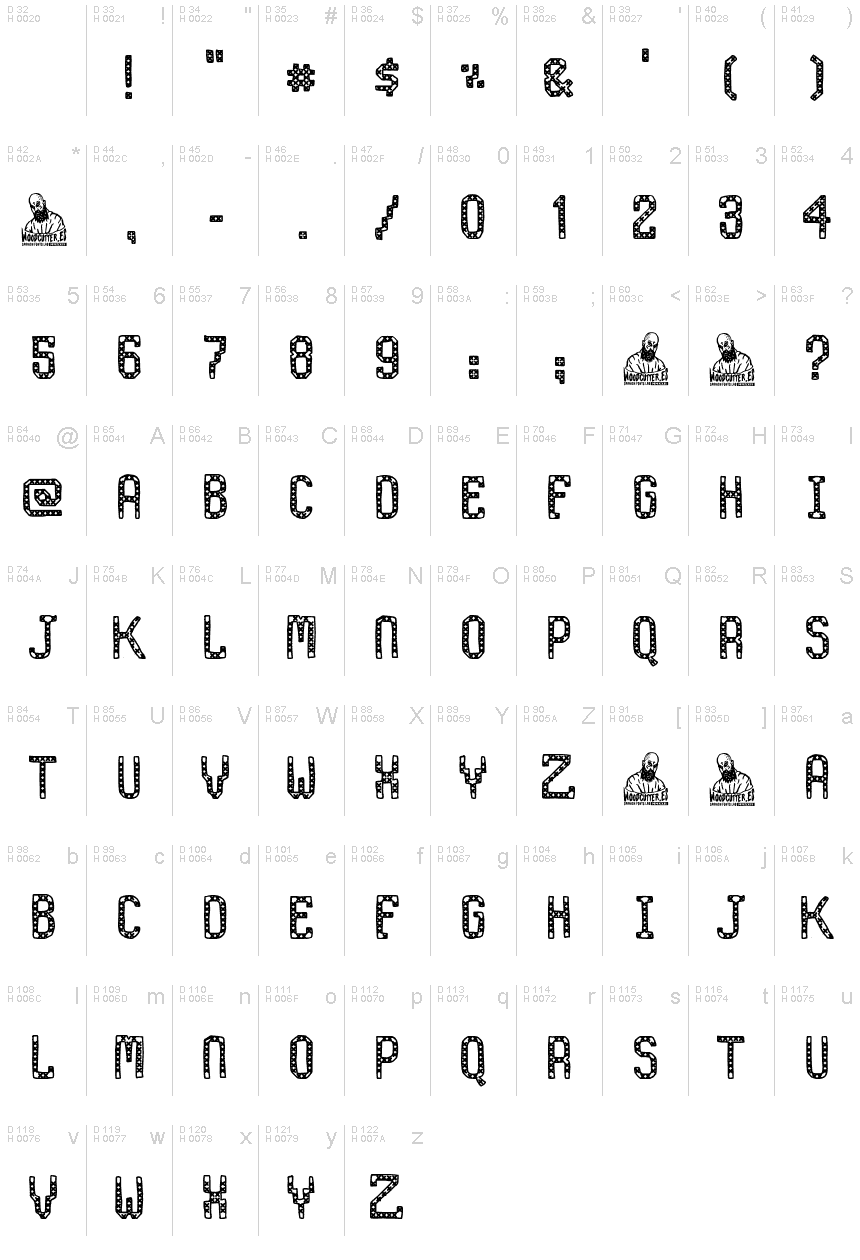
Stupid Fashion
Stupid Fashion by Woodcutter is a captivating display font with a decorative touch. Its semi-light weight and condensed width add an elegant and stylish flair to any project.
This font is perfect for fashion editorials, branding materials, and advertising campaigns aiming to make a bold statement. Its unique design will also bring creativity and excitement to event invitations, packaging designs, and social media graphics.
With Stupid Fashion, your projects will stand out from the crowd with its eye-catching charm and distinct personality.